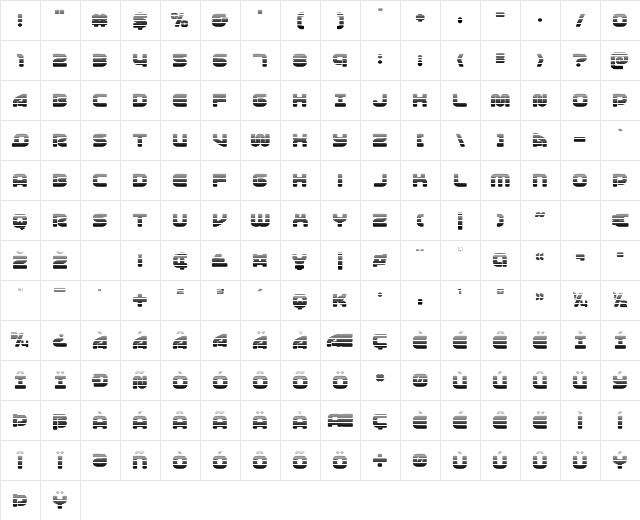
1st Enterprises Gradient Regular Free Font
1st Enterprises Gradient Regular
1st Enterprises Gradient Family
Complete 1st Enterprises Gradient Regular glyph index. Displaying only characters natively supported by 1st Enterprises Gradient Regular font.
Design Context for 1st Enterprises Gradient
1st Enterprises Gradient is a composed and adaptable typeface that performs quietly and consistently across a wide range of design contexts.